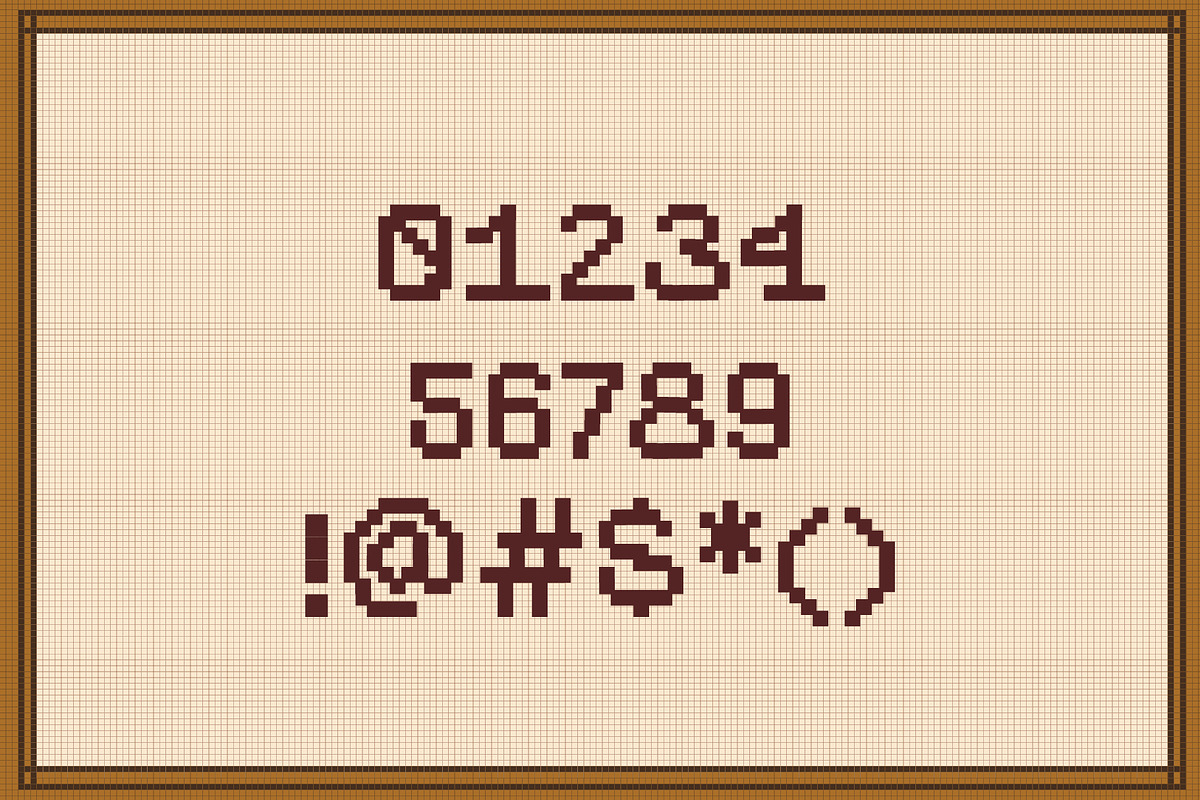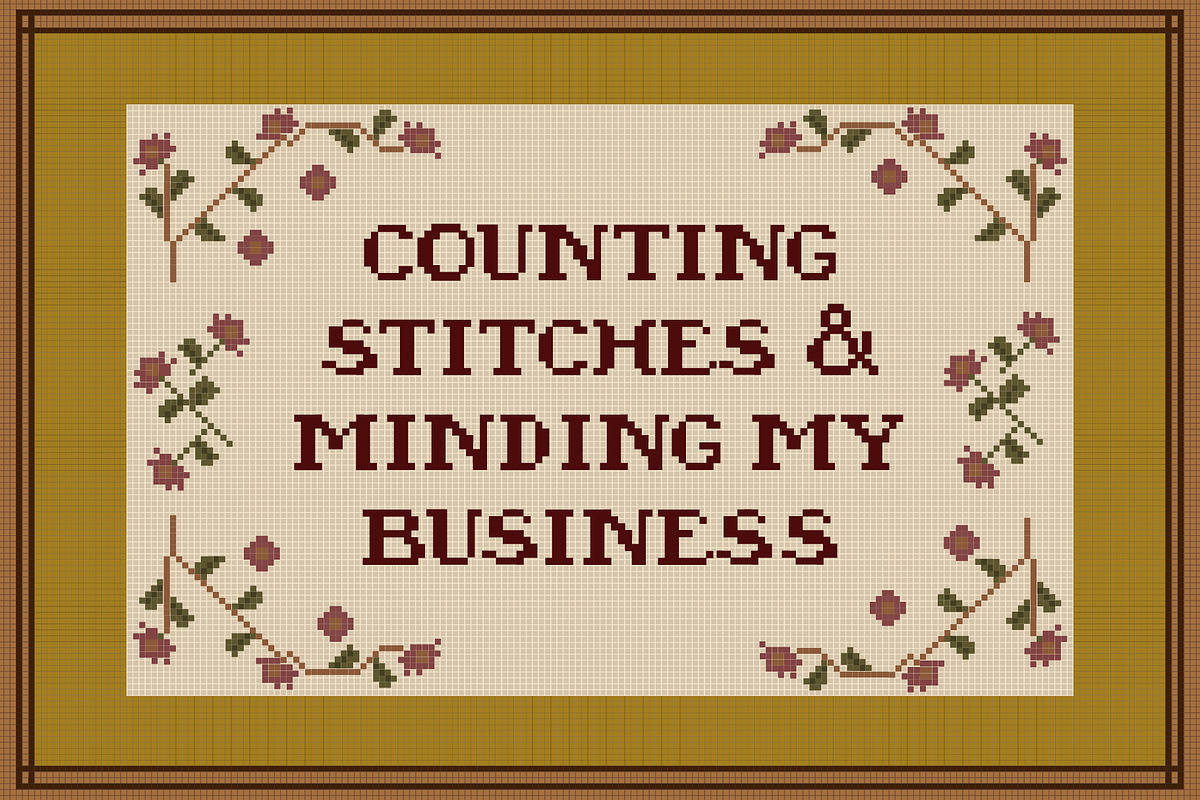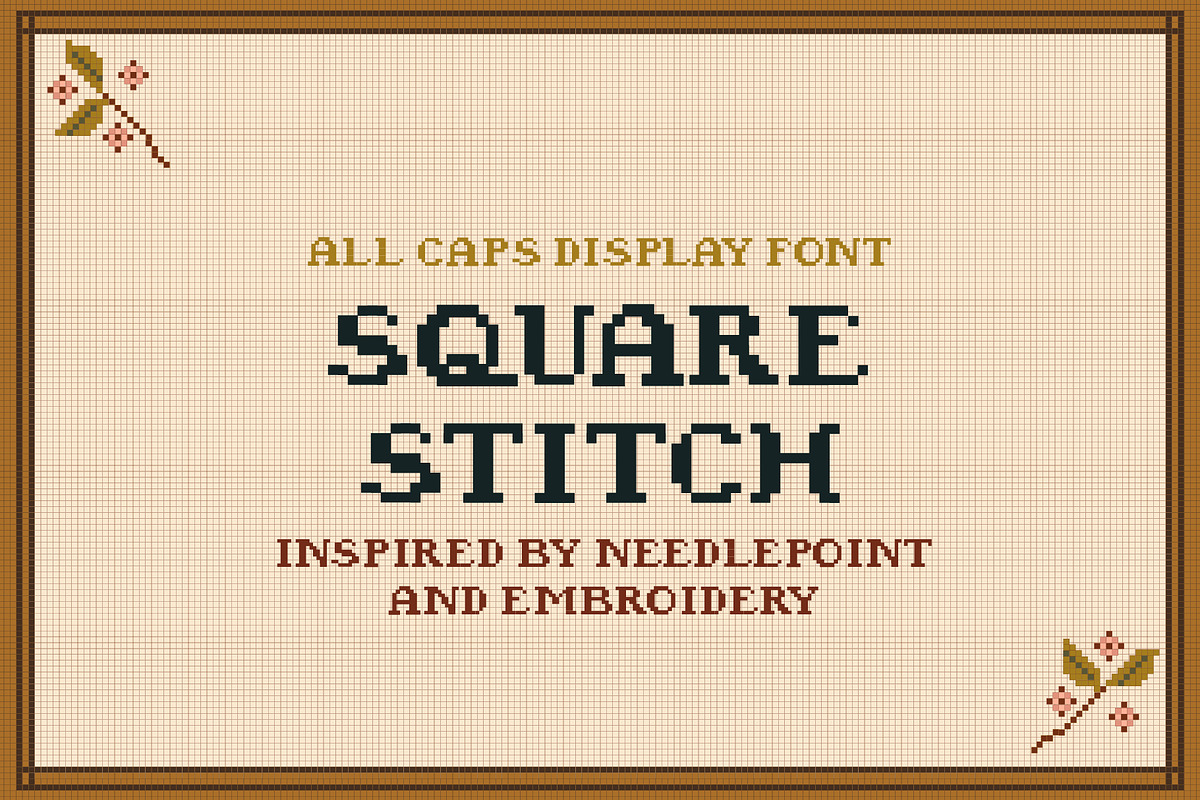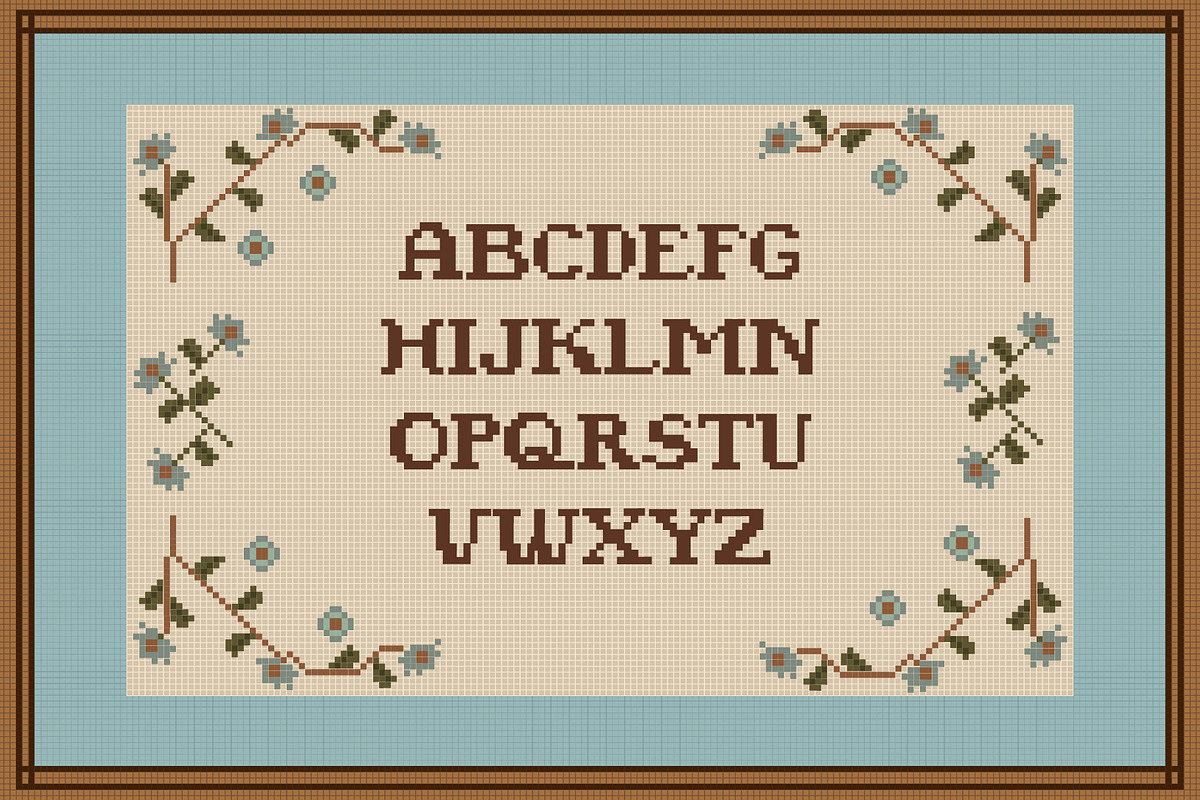
SQUARESTITCH by Natasha Reddy
SQUARESTITCH is an all-caps, pixel-style display font inspired by modern needlepoint and cross-stitch home decor, cottagecore, and grandmacore trends. Its blocky, structured character makes it ideal for projects that need a playful, cozy aesthetic. Use it for cross stitch patterns, embroidery ideas, custom stationery, home decor graphics, social media graphics, branding, packaging, or any design that wants to feel handmade, cozy, and nostalgic.